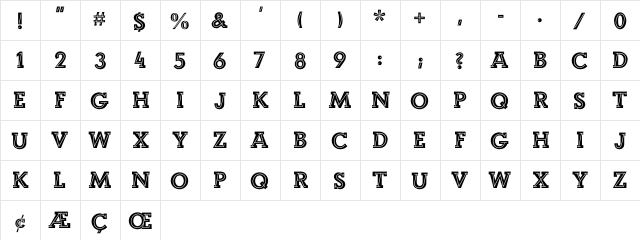
Landi_Echo Regular
Design Context for Landi_Echo Typeface
Landi_Echo is a composed and adaptable typeface that performs quietly and consistently across a wide range of design contexts.